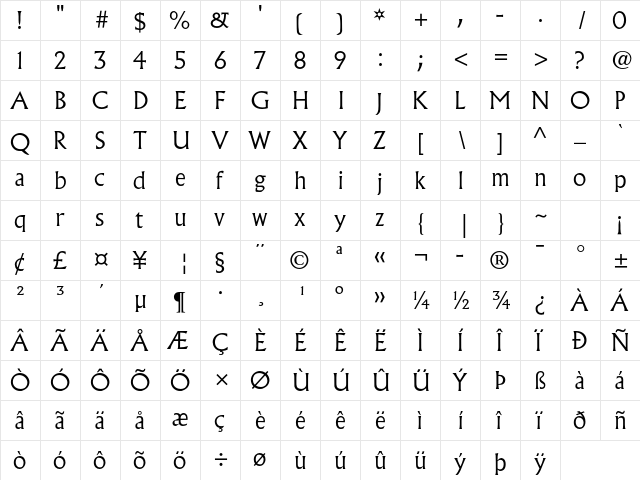
Albertus MT Std Light
| Designer | Berthold Wolpe |
Design Context for Albertus MT Std Typeface
Albertus MT Std takes a measured approach to typography — its balanced proportions and neutral character make it a reliable workhorse for both digital and print work. Its slender proportions lend an understated elegance to any composition.